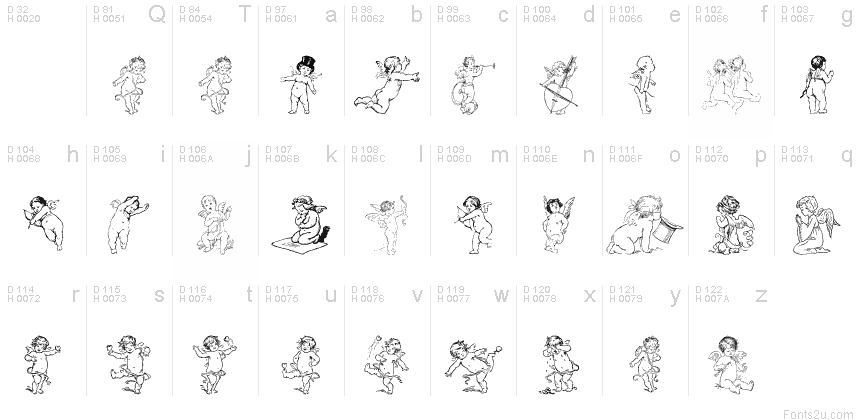
Gabriel's Angels
Gabriel's Angels font by Listemageren is a free decorative dingbat typeface. Each glyph is a tiny illustration: plump, winged cherubs in mid-twirl, clutching hearts, ribbons, or even a jaunty top hat, drawn with inky, etching-style lines. The artwork feels like it was lifted from an old storybook—softly romantic, a little mischievous, and wonderfully detailed.
Using Gabriel's Angels, you can drop ready‑made cherub scenes straight into wedding stationery, Valentine cards, baby shower invites, scrapbook pages, gift tags, or candy packaging. The dingbats hold up especially well at larger sizes, where the fine lines can breathe; pair this free font with a simple serif or clean sans to keep the illustrations center stage.